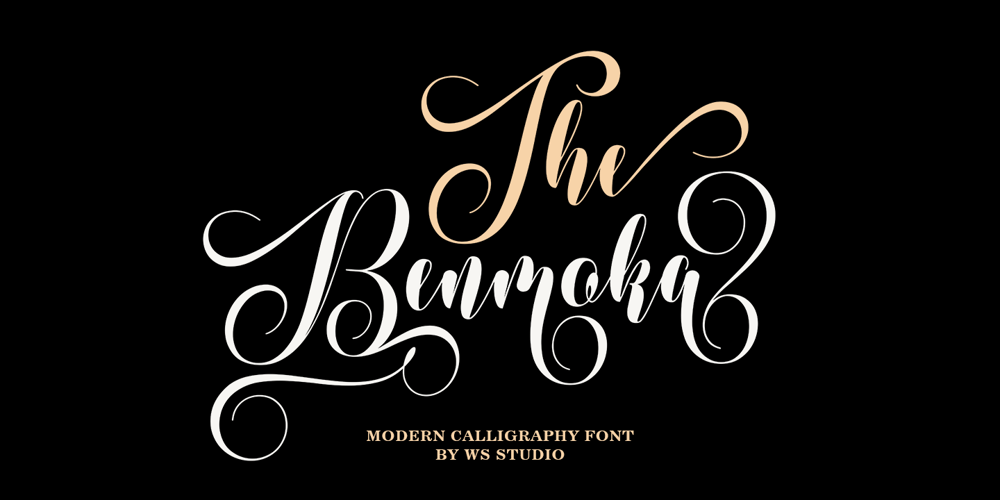
The Benmoka Font Family was designed by Wais Alqarni and published by Ws Studio. The Benmoka contains 1 styles and family package options. The Benmoka is a modern font, organic, dynamic and energetic sytle.Can used for various purposes. such as the title, signature, logo, correspondence, wedding invitations, letterhead, signage, labels, newsletters, posters, badges, etc.Files included:To enable the OpenType Stylistic alternates, you need a program that supports OpenType features such as Adobe Illustrator CS, Adobe Indesign & CorelDraw X7, Microsoft Word 2010 or later versions.How to access all alternative characters, using Windows Character Map with Photoshop: The Benmoka is coded with PUA Unicode, which allows full access to all the extra characters without having special designing software. Mac users can use Font Book , and Windows users can use Character Map to view and copy any of the extra characters to paste into your favourite text editor/app.Thanks so much for looking and please let me know if you have any questions